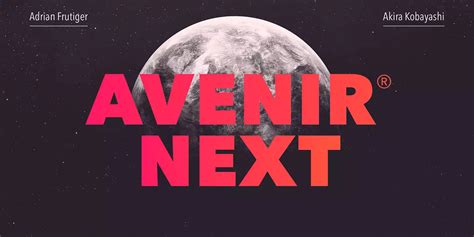
Avenir Next Google Font. Web making the web more beautiful, fast, and open through great typography Think of it as a more neutral version of geometric.
Think of it as a more neutral version of geometric. Web making the web more beautiful, fast, and open through great typography
Web making the web more beautiful, fast, and open through great typography Web making the web more beautiful, fast, and open through great typography Think of it as a more neutral version of geometric.